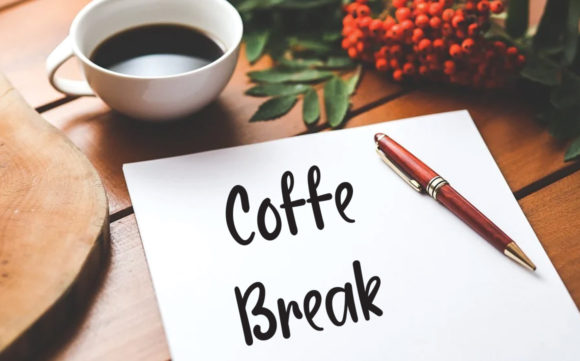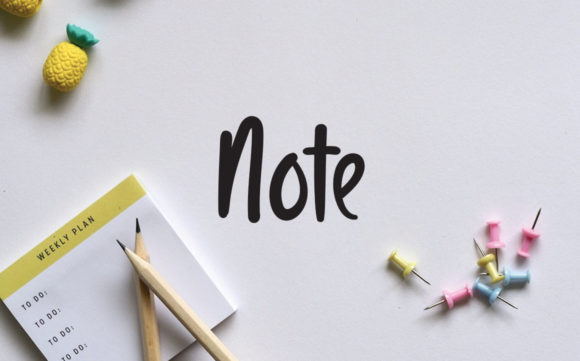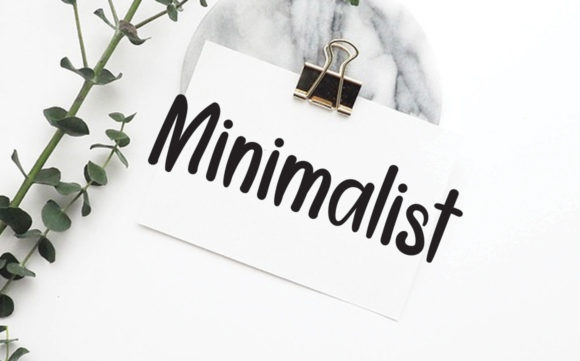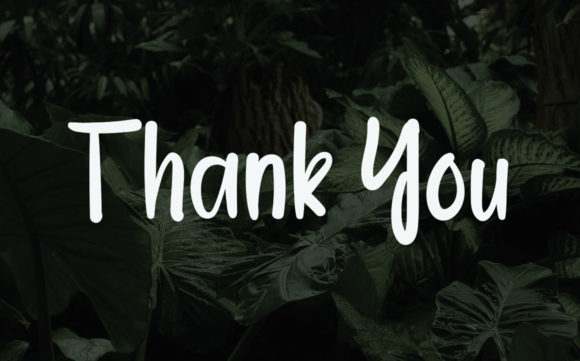
Introduction to Greenhouse Font Font
Fonts play a crucial role in design, and the Greenhouse Font font is a typeface that brings both character and versatility to any project. Whether you’re working on a branding project, a website, or a print design, the Greenhouse Font font offers a unique style that can elevate your work.
Greenhouse is a beautiful and flowing handwritten font.
Use it for wall displays, wedding invitations, social media post logos, advertisements, product packaging, product designs, labels, photography, watermarks, invitations, stationery, and any project that requires impressive typography .
Key Features of Greenhouse Font Font
Why Choose Greenhouse Font Font?
The Greenhouse Font font is more than just a typeface – it’s a design tool that helps you communicate your message with style and clarity. Its unique character set and versatile design make it suitable for a wide range of applications, from elegant invitations to bold headlines.
With its carefully crafted letterforms and balanced proportions, the Greenhouse Font font ensures readability and visual appeal across all mediums.
What makes Greenhouse Font font special?
The Greenhouse Font font stands out with its unique design, exceptional readability, and versatility across various design applications.